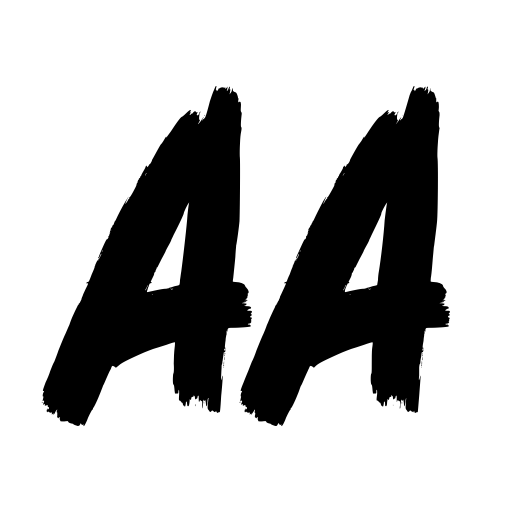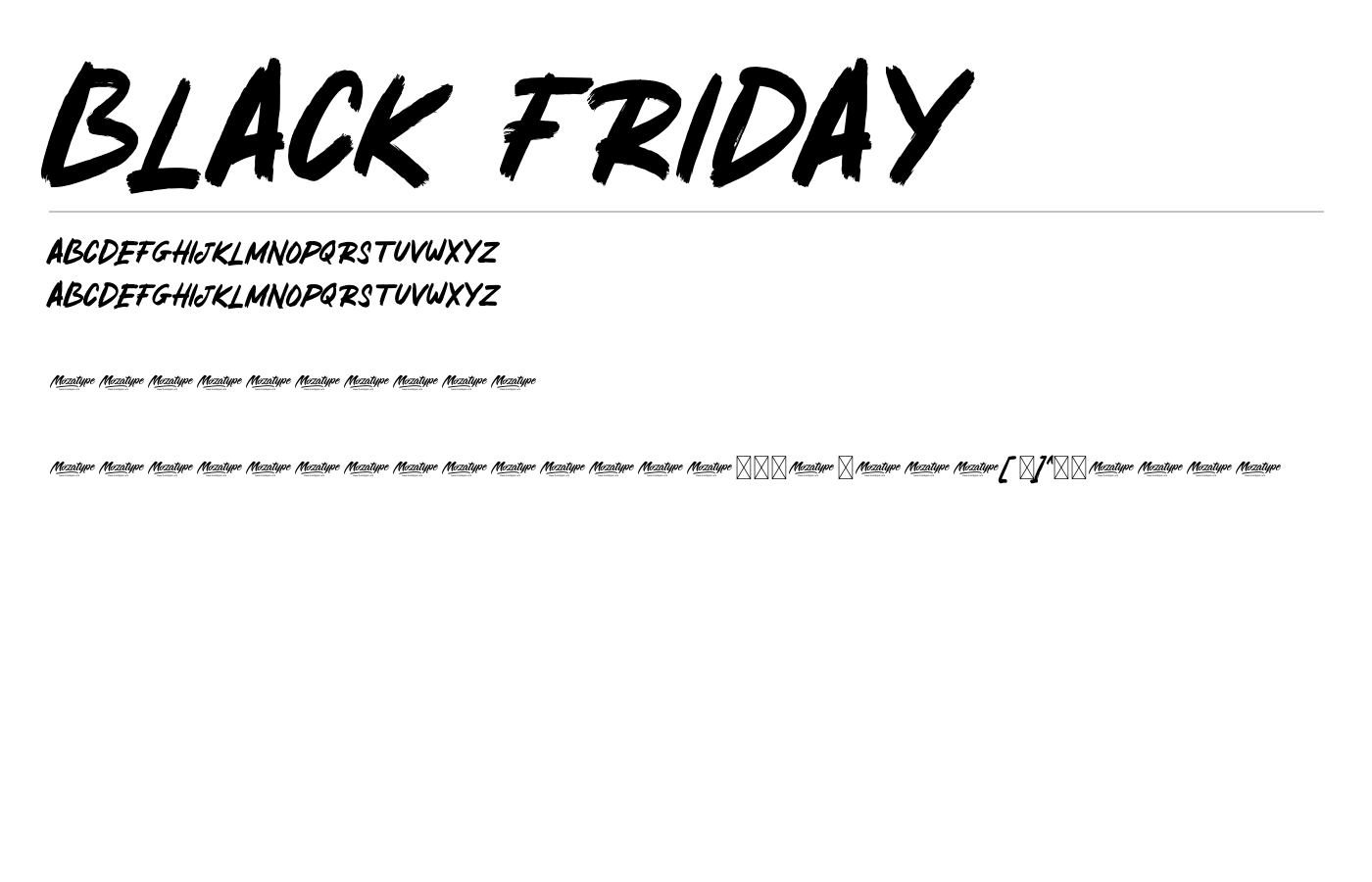
Black Friday is a bold, brush-style script font that exudes energy and a hand-painted charm. Its uneven strokes and strong, casual flair make it perfect for dynamic headlines, promotions, and branding that want to convey urgency and creativity. This font works especially well for modern, playful designs where attention-grabbing impact is key.
BLACK FRIDAY Font
About BLACK FRIDAY Font
| Font family | BLACK FRIDAY Font |
| Designer | Mozarella.std |